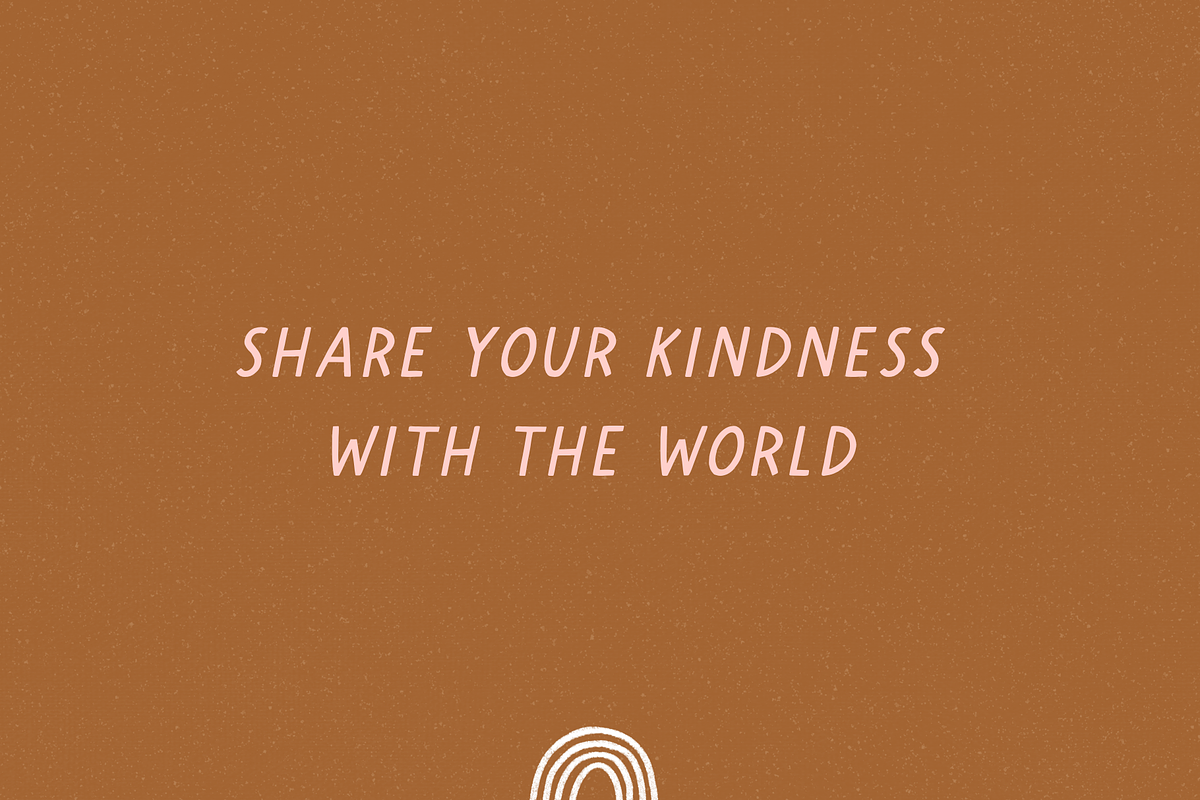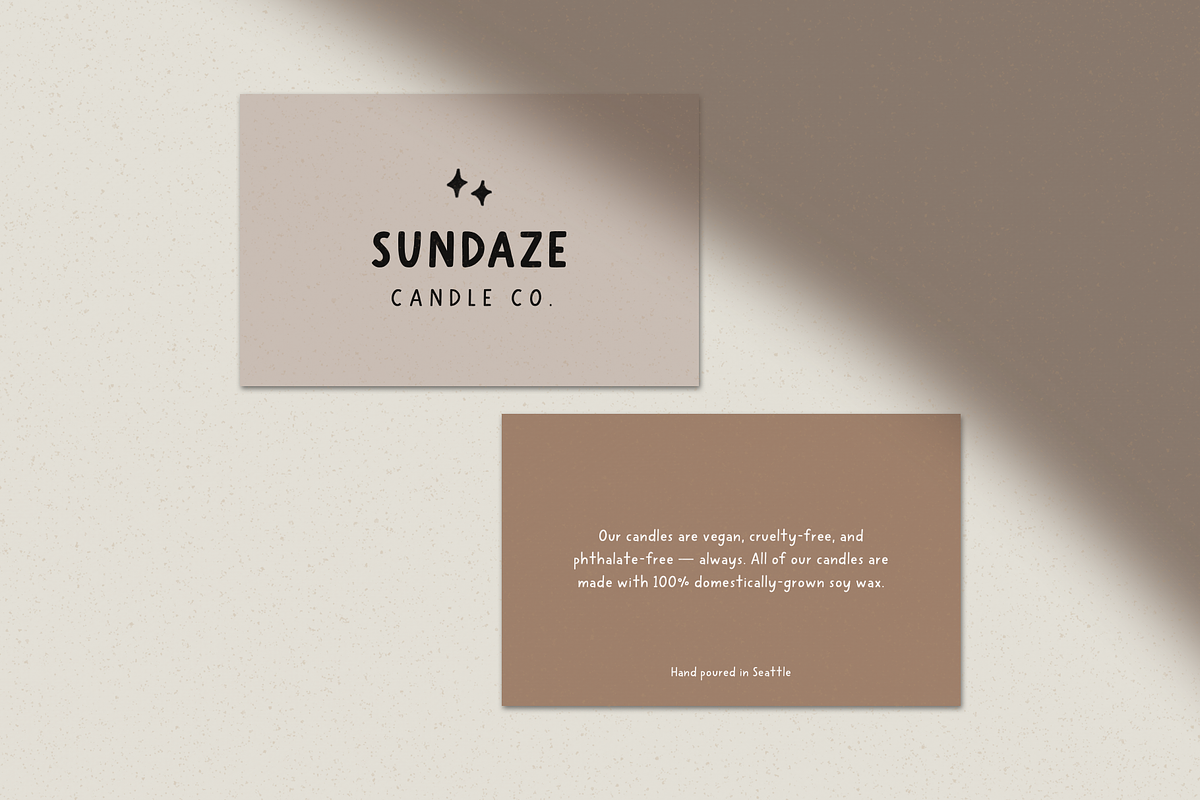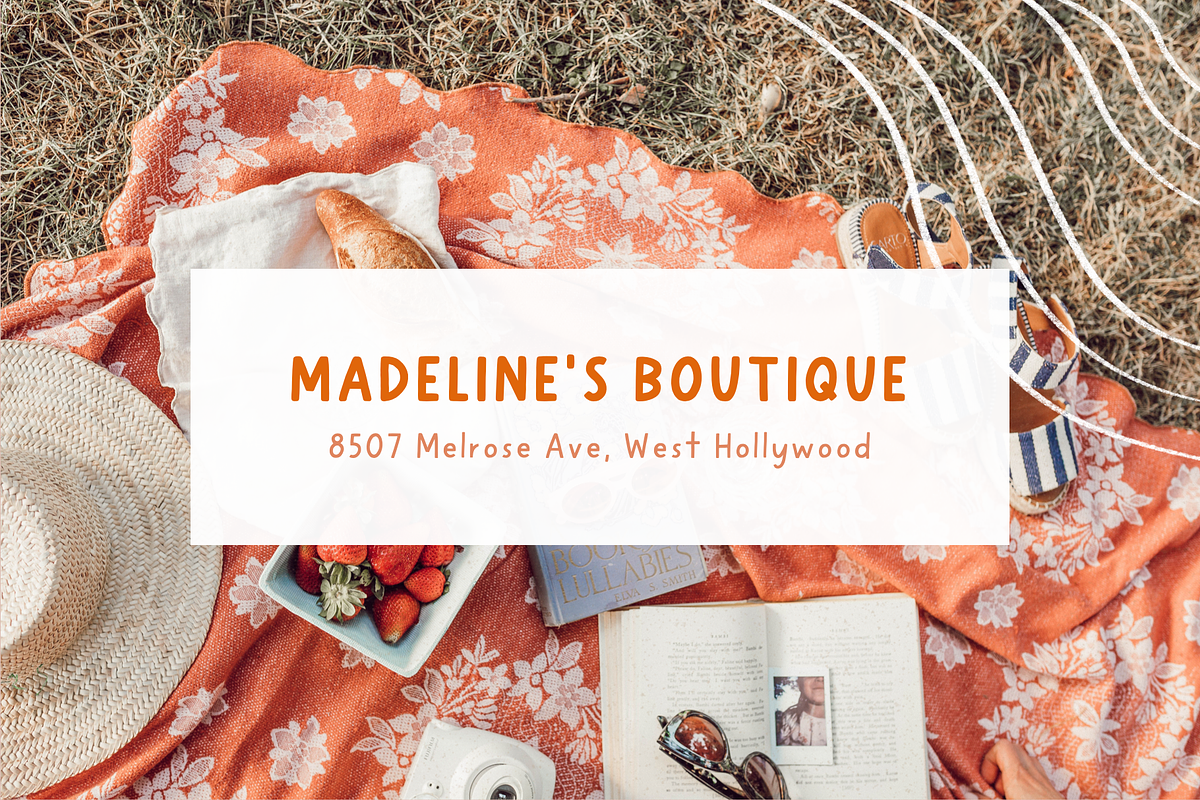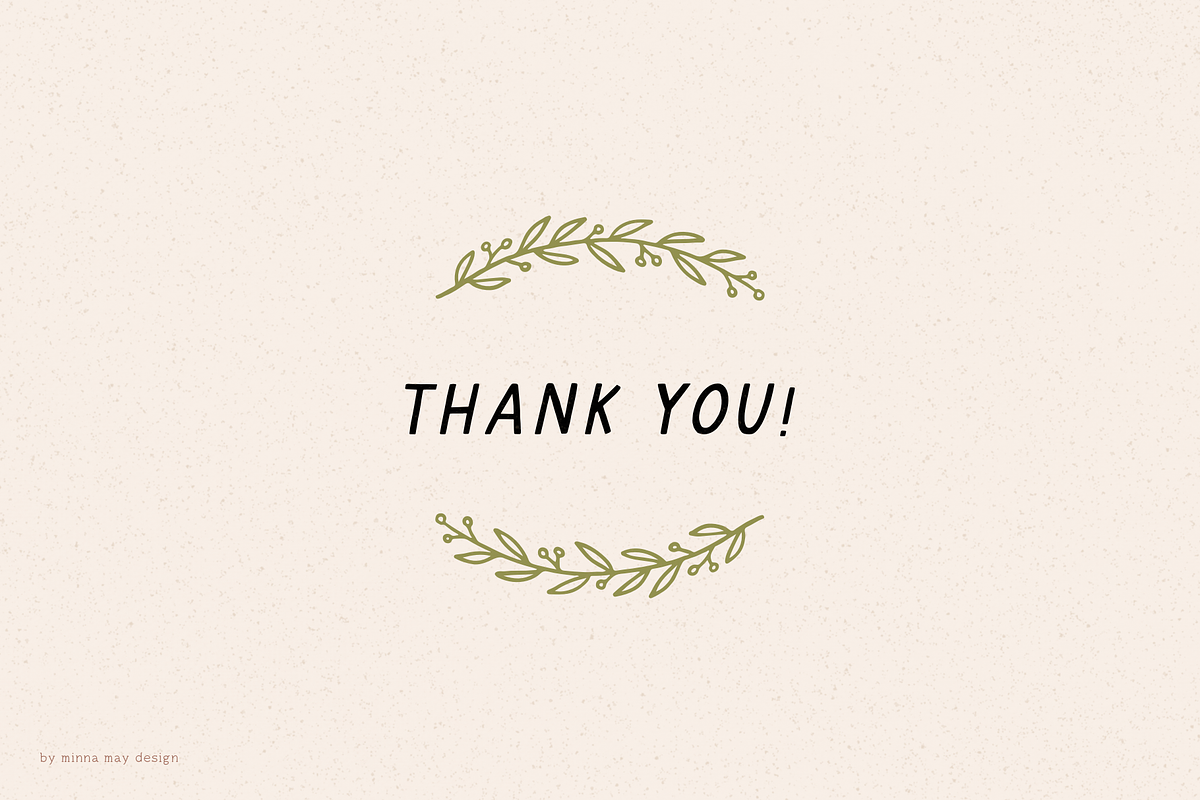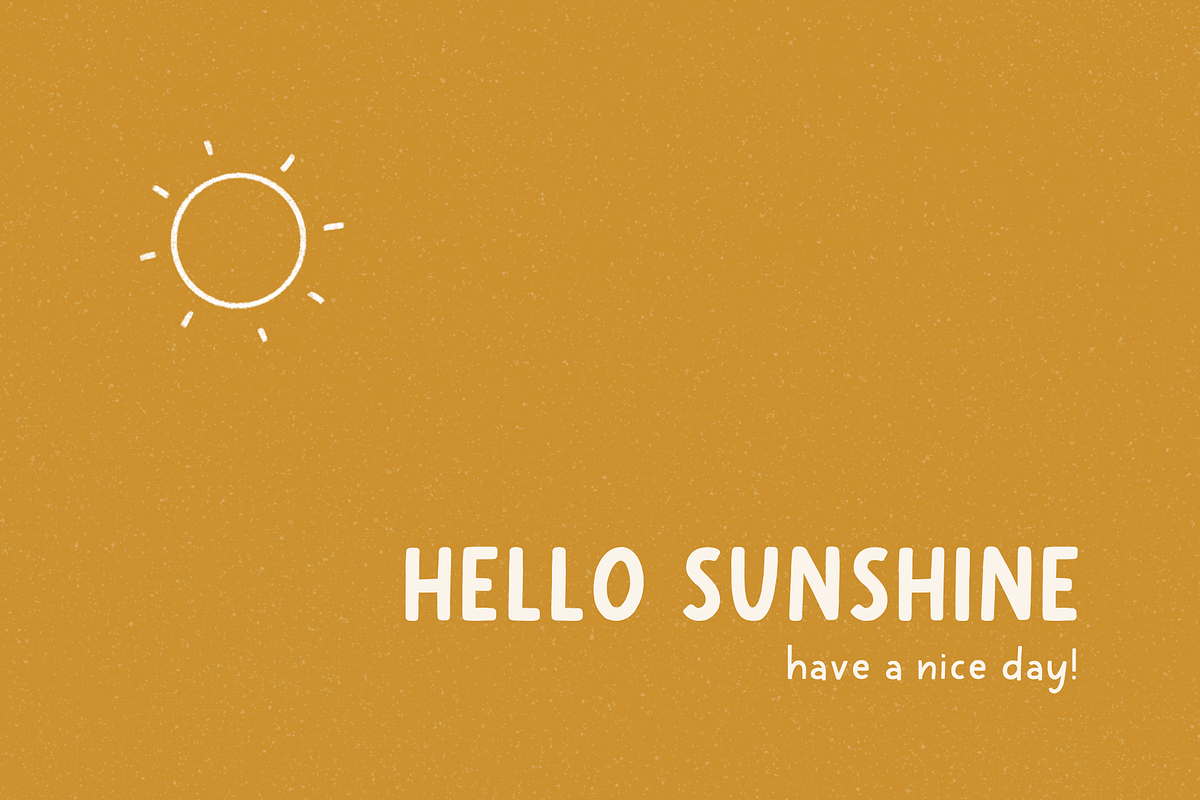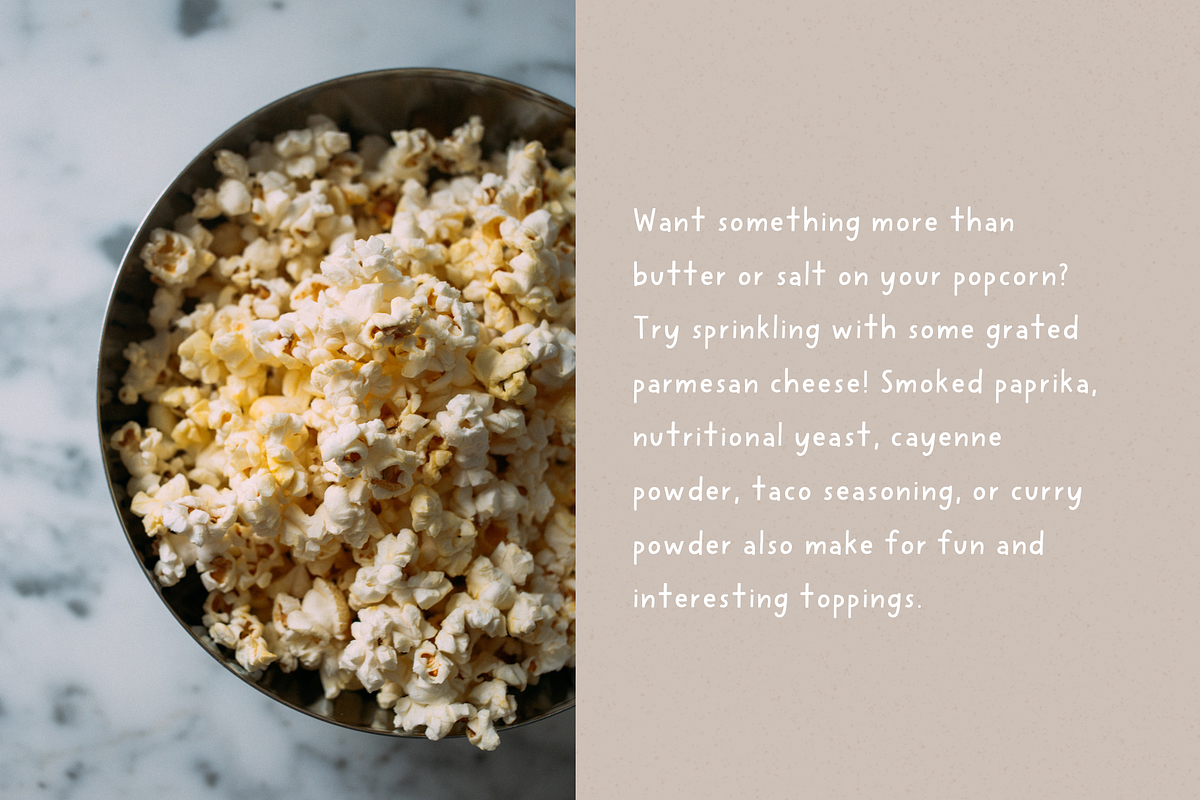
Cherry - Handlettered Blocky Font
CHERRY - a hand-drawn blocky typeface. Its hand drawn style provides an imperfect look, great to add a handmade touch to your projects! Use for logos, quotes, invitations, blog posts, business cards, presentations and more!
• Regular, Italic, Bold and Bold Italic
• Uppercase & Lowercase
• Numbers & Punctuation